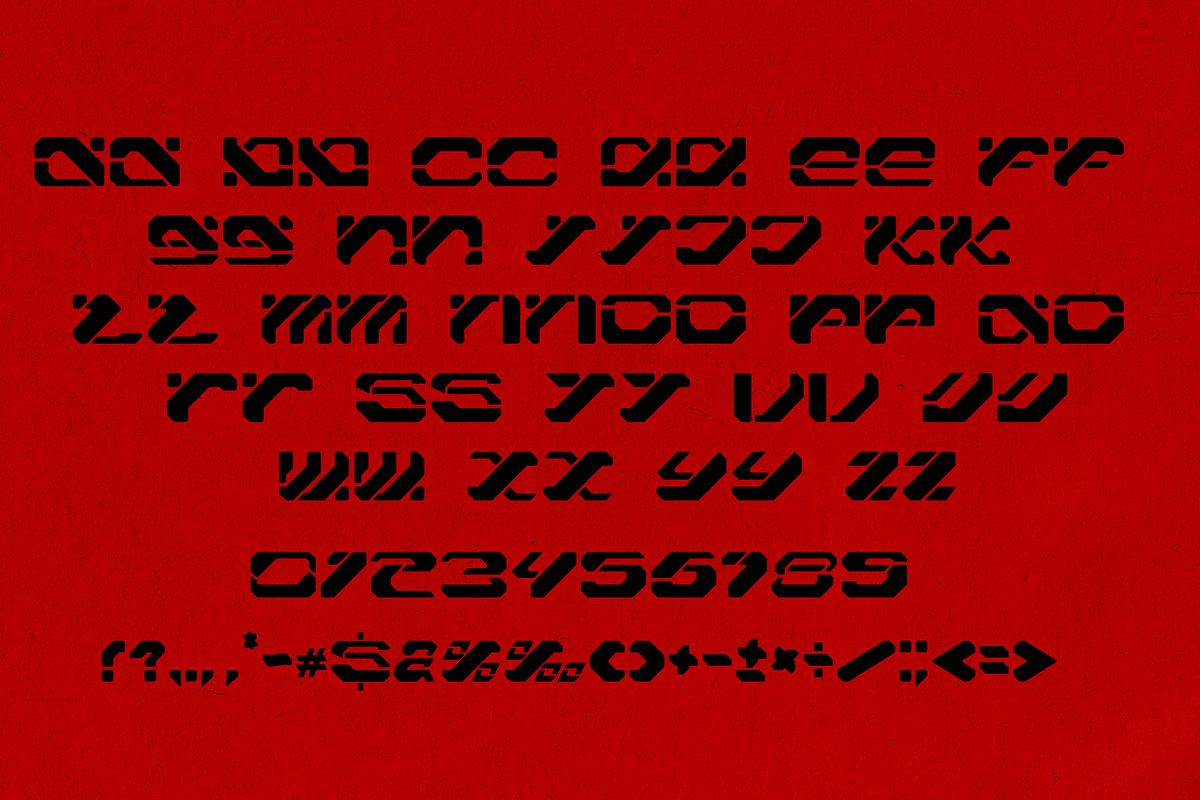
Trust Blood Typeface Y2k Tech Font Free Download is a futuristic, edgy typeface inspired by the bold aesthetics of the Y2K era. With its sharp angles, digital vibes, and tech-driven energy, this font is perfect for cyberpunk themes, tech branding, gaming graphics, and edgy fashion labels. It captures that turn-of-the-millennium style with a modern twist, making it ideal for bold, high-impact visuals.
Designed to stand out, Trust Blood Typeface Y2k Tech Font Free Download brings retro-futuristic nostalgia and rebellious attitude into your creative toolkit. It’s great for posters, album covers, logos, or anything that needs a high-tech, alternative edge.